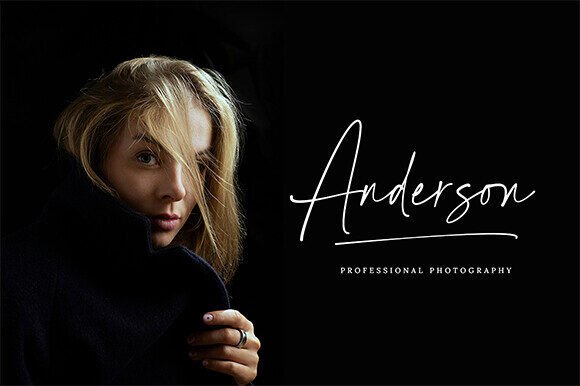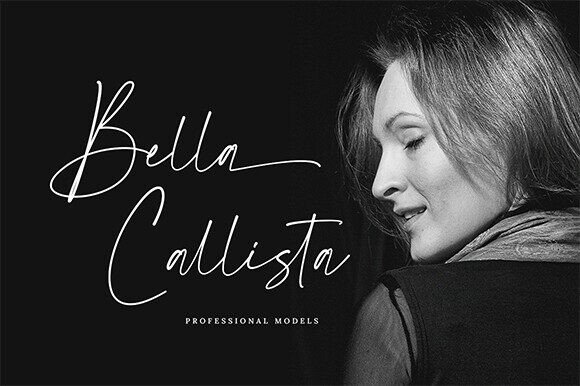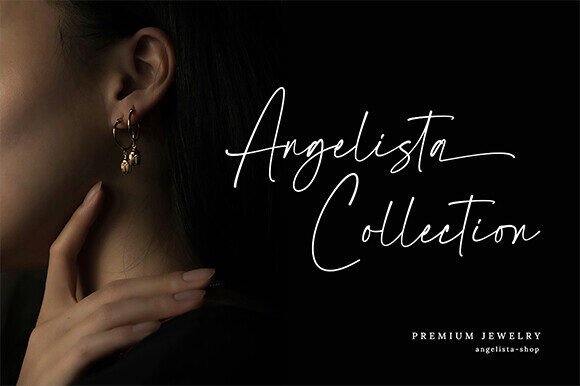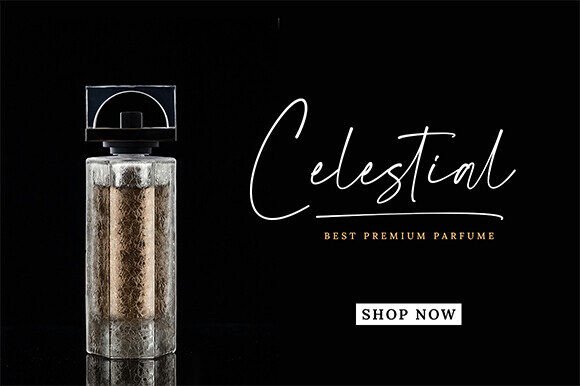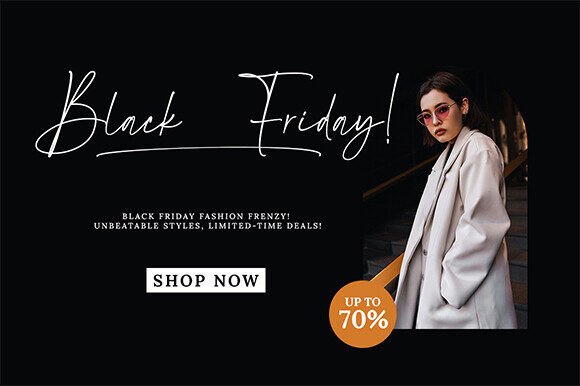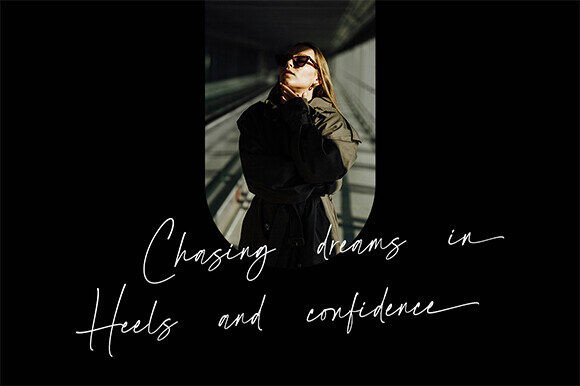
Introduction to Majestic Harmony Font Font
Fonts play a crucial role in design, and the Majestic Harmony Font font is a typeface that brings both character and versatility to any project. Whether you’re working on a branding project, a website, or a print design, the Majestic Harmony Font font offers a unique style that can elevate your work.
Majestic Harmony is a beautifully crafted handwritten signature font that exudes elegance and sophistication.
Its graceful, flowing lines and refined details make it perfect for adding a touch of luxury to branding, invitations, and personal signatures With its timeless charm, Majestic Harmony seamlessly blends artistry and legibility, offering a stylish and polished look that elevates any design.
Key Features of Majestic Harmony Font Font
Why Choose Majestic Harmony Font Font?
The Majestic Harmony Font font is more than just a typeface – it’s a design tool that helps you communicate your message with style and clarity. Its unique character set and versatile design make it suitable for a wide range of applications, from elegant invitations to bold headlines.
With its carefully crafted letterforms and balanced proportions, the Majestic Harmony Font font ensures readability and visual appeal across all mediums.
What makes Majestic Harmony Font font special?
The Majestic Harmony Font font stands out with its unique design, exceptional readability, and versatility across various design applications.